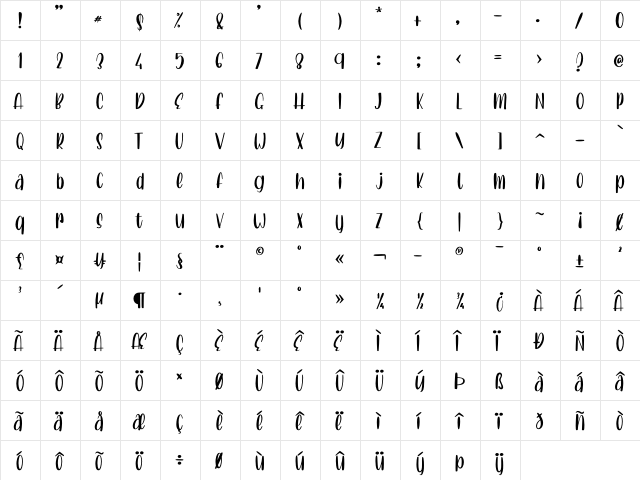
Lovely Unicorn Regular
| Designer | Sarwo Edhi Prayitno |
Design Context for Lovely Unicorn Typeface
Lovely Unicorn is a composed and adaptable typeface that performs quietly and consistently across a wide range of design contexts.